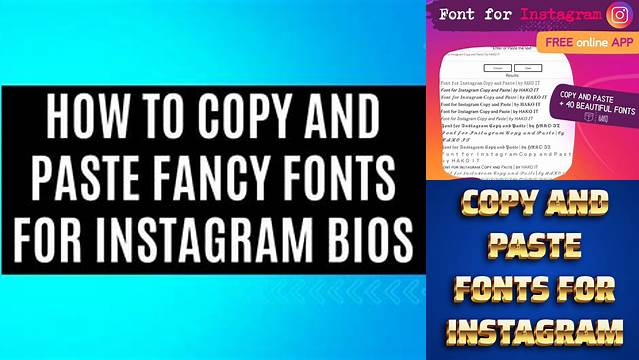
Bold Fonts: Copy & Paste For Instagram (Easy Guide)
Hey guys! Want to make your Instagram posts pop? One super easy way to do that is by using bold fonts. You know, make your captions and bio really stand out from the crowd. But how do you actually get those fancy fonts on Instagram? Well, that's what we're diving into today! We'll explore everything you need to know about bold fonts for Instagram, from copy-pasting techniques to cool font generators and even some tips on when and how to use them effectively. So, let's get started and make your Instagram game strong!
Why Use Bold Fonts on Instagram?
Using bold fonts on Instagram is a fantastic way to grab attention in a visually crowded space. Think about it β everyone's scrolling through their feeds, quickly glancing at posts. A bold font acts like a little highlighter, instantly drawing the eye to your text. This is especially useful for highlighting key information in your captions, making important announcements in your stories, or simply adding a touch of personality to your profile bio. Imagine you're running a contest β using bold fonts for the prize details will make them stand out and increase participation. Or, if you're sharing a heartfelt message, bolding the core sentiment can add extra emphasis. Bold fonts can also help break up large blocks of text, making your content more readable and engaging. It's all about making a visual impact and ensuring your message gets noticed!
How to Copy and Paste Bold Fonts for Instagram
The easiest way to use bold fonts for Instagram is by copying and pasting them from a font generator. There are tons of free online tools that let you type in your text and then convert it into various bold font styles. Simply type your message into the generator, select the bold font you like, copy it, and then paste it into your Instagram caption, bio, or story. Itβs that simple! Most of these generators use Unicode characters to create the bold font effect, which means they'll work on virtually any device and platform. This method is super convenient because you don't need to download any special apps or fonts β everything happens online. Plus, you can experiment with different bold font styles until you find the perfect one to match your aesthetic.
Top Bold Font Generators for Instagram
Okay, so you know why and how to use bold fonts, but where do you find them? There are several fantastic online bold font generators designed specifically for Instagram. Some popular options include LingoJam, YayText, and Instagram Fonts. These generators are super user-friendly: you just type your text into the box, and they'll instantly generate a variety of bold fonts for you to choose from. Some generators even offer other cool font styles like italics, cursive, and even fancy decorative fonts. The best part is that they're all free to use! You can play around with different fonts until you find the perfect one to match your brand or the vibe of your post. Just remember to copy and paste the font directly into Instagram β you won't be able to type in bold fonts directly within the app.
Using Bold Fonts in Your Instagram Bio
Your Instagram bio is like your digital first impression, so making it stand out is key. Bold fonts can be a game-changer here. Use them to highlight your name, your profession, or a key message you want people to remember. For example, if you're a photographer, you could bold the word "Photographer" in your bio. Or, if you're running a small business, you could bold your company's tagline. Using bold fonts in your bio helps to draw attention to the most important information, making it easier for people to understand what you're all about. It also adds a touch of visual flair, making your profile look more polished and professional. Just remember to use bold fonts sparingly β you want to emphasize certain elements, not overwhelm your bio with too much bold text.
Bold Fonts in Instagram Captions: Dos and Don'ts
When it comes to Instagram captions, bold fonts can be your best friend, but it's important to use them wisely. The key is to bold only the most important words or phrases. Think keywords, calls to action, or anything you want to emphasize. For example, if you're announcing a sale, you could bold the discount percentage or the dates of the sale. If you're asking a question, you could bold the question itself to encourage engagement. However, avoid bolding entire sentences or paragraphs β this can make your caption look cluttered and difficult to read. It's all about creating a balance and using bold fonts strategically to guide your reader's eye. A well-placed bold font can significantly enhance the impact of your caption, making it more engaging and memorable.
Making Your Instagram Stories Stand Out with Bold Fonts
Instagram Stories are all about capturing attention quickly, and bold fonts can help you do just that. Whether you're announcing a flash sale, sharing a behind-the-scenes moment, or simply adding text to your story, using bold fonts can make your message pop. In Stories, you have even more creative freedom to experiment with different bold font styles and sizes. You can use bold fonts to create headlines, highlight key information, or add a touch of personality to your text overlays. Just like with captions, it's important to use bold fonts strategically. Too much bold text can be overwhelming, so focus on bolding the most important elements of your story. A well-placed bold font can make your stories more visually appealing and help you connect with your audience on a deeper level.
The Psychology of Fonts: How Bold Fonts Affect Your Audience
Fonts aren't just about aesthetics; they also have a psychological impact on your audience. Bold fonts, in particular, convey a sense of strength, importance, and confidence. When you use bold fonts in your Instagram content, you're subconsciously signaling to your viewers that the text is something they should pay attention to. This can be incredibly effective for highlighting key messages, driving engagement, and establishing a strong brand identity. For example, if you're a fitness coach, using bold fonts in your posts can project an image of strength and authority. If you're a luxury brand, a subtle use of bold fonts can convey a sense of exclusivity and importance. Understanding the psychology of fonts allows you to use them strategically to shape your audience's perception of your brand and message.
Combining Bold Fonts with Other Font Styles for Maximum Impact
While bold fonts are fantastic for grabbing attention, you can achieve even greater impact by combining them with other font styles. Think of it like creating a visual hierarchy: bold fonts for the headlines, regular fonts for the body text, and maybe italics for emphasis. This creates a dynamic and visually engaging look that keeps your audience interested. For example, in your Instagram caption, you could use a bold font for the main title, a regular font for the description, and italics for a witty comment or a call to action. This combination of font styles helps to break up the text, highlight important information, and add a touch of personality to your content. Experiment with different font combinations to find what works best for your brand and your message. The goal is to create a visually appealing and easy-to-read experience for your audience.
Bold Font Alternatives: Exploring Different Ways to Emphasize Text
While bold fonts are a popular choice for emphasizing text, they're not the only option. There are several other ways to make your words stand out on Instagram. Italics are a classic choice for adding emphasis, while uppercase letters can convey a sense of urgency or excitement. You can also use emojis to highlight key points or add a touch of personality to your text. Another technique is to use line breaks to create visual separation and draw attention to specific phrases. The key is to mix and match these techniques to create a visually dynamic and engaging experience for your audience. Don't be afraid to experiment and find what works best for your brand and your message. Sometimes, a subtle use of italics can be just as effective as a bold font, or a well-placed emoji can convey your message even more powerfully.
Troubleshooting: Why Your Bold Fonts Might Not Be Showing Up
Sometimes, despite your best efforts, your bold fonts might not show up correctly on Instagram. This can be frustrating, but don't worry, there are a few common causes and fixes. The most likely culprit is a compatibility issue with the font generator you're using. Some font generators use Unicode characters that aren't fully supported by all devices or versions of Instagram. If you're experiencing this issue, try using a different font generator or a different bold font style. Another possibility is a problem with your device's font settings. Make sure your device is set to display Unicode characters correctly. If you're still having trouble, try clearing your Instagram app's cache or reinstalling the app. In most cases, these simple troubleshooting steps will resolve the issue and get your bold fonts looking their best.
The Future of Fonts on Instagram: What's Next?
The world of fonts on Instagram is constantly evolving. While copy-pasting from font generators is the most common method right now, there's always the possibility that Instagram will introduce native bold font options in the future. Imagine being able to simply select a text and click a "Bold" button β that would be super convenient! In the meantime, font generators will continue to adapt and offer new and creative font styles for Instagram users. We might even see AI-powered font generators that can suggest the perfect font based on your content and brand. One thing is for sure: the desire to make our text stand out on Instagram isn't going away anytime soon. So, keep experimenting with different bold fonts and other font styles, and stay tuned for the latest developments in the world of Instagram typography!
Creating a Consistent Brand Image with Bold Fonts
Consistency is key when it comes to building a strong brand image on Instagram, and that includes your use of fonts. If you want to establish a cohesive brand aesthetic, it's important to choose a few bold font styles and stick with them. Think of your bold fonts as part of your brand's visual identity, just like your logo and color palette. For example, if you're a minimalist brand, you might choose a clean and simple bold font. If you're a playful brand, you might opt for a more quirky and whimsical bold font. The key is to select bold fonts that align with your brand's personality and use them consistently across your Instagram profile, captions, and stories. This will help your audience recognize your content instantly and build a strong association with your brand.
Legal Considerations: Using Bold Fonts Responsibly
While using bold fonts on Instagram is generally safe and legal, there are a few things to keep in mind. First, make sure you're not using bold fonts in a way that could be misleading or deceptive. For example, don't bold a claim that isn't true or bold a price that's not accurate. Honesty and transparency are always the best policy. Second, be mindful of accessibility. While bold fonts can help make your text stand out, they can also be difficult to read for people with certain visual impairments. Try to use bold fonts in moderation and consider using other font styles or techniques to make your content more accessible. Finally, if you're using bold fonts for commercial purposes, make sure you comply with any relevant advertising regulations. Overall, using bold fonts responsibly is about being mindful of your audience and ensuring your content is clear, accurate, and accessible.
Bold Fonts vs. Other Emphasis Techniques: Which to Choose?
Bold fonts are a fantastic tool for emphasis, but they're not the only option. You can also use italics, uppercase letters, emojis, and line breaks to make your text stand out. So, how do you choose the right technique for the job? It often comes down to the specific context and your desired effect. Bold fonts are great for highlighting key words or phrases, creating headlines, and conveying a sense of importance. Italics are ideal for adding a subtle emphasis, conveying emotion, or quoting someone. Uppercase letters can be effective for creating a sense of urgency or excitement, but use them sparingly as they can also come across as aggressive. Emojis are perfect for adding a touch of personality and highlighting key points in a visually appealing way. And line breaks can help break up large blocks of text and draw attention to specific phrases. The best approach is often to combine these techniques to create a dynamic and engaging text.
Accessibility Considerations When Using Bold Fonts
While bold fonts can be a great way to make your text stand out on Instagram, it's important to consider accessibility for all users. Some people with visual impairments may find bold fonts difficult to read, especially if they are used excessively or in combination with other stylistic elements. To ensure your content is accessible, it's a good idea to use bold fonts in moderation and avoid using them for large blocks of text. Instead, focus on bolding key words and phrases that you want to emphasize. You can also use other techniques, such as adding descriptive alt text to your images or providing captions for your videos, to make your content more accessible to a wider audience. Remember, creating inclusive content not only benefits individuals with disabilities but also enhances the overall user experience for everyone.
Bold Fonts and Readability: Finding the Right Balance
The main goal of using bold fonts is to enhance readability and draw attention to important information. However, using too many bold fonts can actually have the opposite effect, making your text cluttered and difficult to read. The key is to find the right balance. Think of bold fonts as a tool for highlighting key elements, not for rewriting entire paragraphs. When you're crafting your Instagram captions, bios, or stories, ask yourself what the most important message you want to convey is. Then, strategically use bold fonts to emphasize those key words and phrases. By using bold fonts sparingly and thoughtfully, you can improve readability and ensure your message gets across effectively. A well-placed bold font can guide your reader's eye and make your content more engaging and memorable.
Monetizing Your Instagram with Bold Fonts: Tips and Tricks
If you're using Instagram to promote your business or brand, bold fonts can be a valuable tool for driving conversions and increasing sales. By using bold fonts strategically in your captions, bios, and stories, you can draw attention to your products, services, and promotions. For example, if you're running a sale, you could bold the discount percentage or the dates of the sale. If you're promoting a new product, you could bold the product name or a key benefit. In your bio, you could bold your website link or a call to action. The key is to use bold fonts to highlight the most important information and make it easy for your audience to take action. A well-placed bold font can be the difference between a casual scroll and a click-through that leads to a sale.
Bold Fonts for Different Niches: What Works Best?
The effectiveness of bold fonts can vary depending on your niche and target audience. What works well for a fashion brand might not be as effective for a tech company. For example, a fashion brand might use a stylish or decorative bold font to convey a sense of luxury and sophistication. A tech company, on the other hand, might opt for a clean and modern bold font to project an image of professionalism and innovation. It's important to consider your brand's personality and the preferences of your target audience when choosing bold fonts. Do some research to see what fonts are commonly used in your niche and experiment with different styles to find what resonates best with your audience. A bold font that aligns with your niche can help you create a stronger brand identity and connect with your audience more effectively.
Bold Fonts in Instagram Ads: Maximizing Click-Through Rates
Instagram ads are a powerful way to reach a wider audience, and bold fonts can play a key role in maximizing your click-through rates. When creating your ad copy, use bold fonts strategically to highlight key benefits, calls to action, and other important information. For example, if you're offering a discount, bold the discount percentage to grab attention. If you're promoting a free trial, bold the words "Free Trial" to entice clicks. In your call to action, use a bold font to make it stand out and encourage users to take the next step. The goal is to make your ad copy as clear, concise, and compelling as possible, and bold fonts can help you achieve that. A well-crafted ad with strategically placed bold fonts can significantly increase your click-through rates and drive more traffic to your website or landing page.
Bold Fonts and User Engagement: Sparking Conversations
Bold fonts can be a great way to spark conversations and increase user engagement on your Instagram posts. By using bold fonts to ask questions, highlight key points, or create a sense of excitement, you can encourage your followers to comment, like, and share your content. For example, if you're sharing a new recipe, you could bold a question like "What's your favorite ingredient?" to get people talking. If you're announcing a new product launch, you could bold the launch date or a key feature to generate buzz. In your captions, use bold fonts to emphasize your call to action and encourage users to engage with your content. The more you can make your posts interactive and engaging, the more likely you are to build a strong community around your brand.
Bold Fonts and Mobile Optimization: Ensuring Legibility
Since most Instagram users access the platform on their mobile devices, it's crucial to ensure your bold fonts are legible on smaller screens. A bold font that looks great on a desktop computer might appear cluttered or overwhelming on a smartphone. When choosing bold fonts for Instagram, opt for styles that are clear, concise, and easy to read on mobile devices. Avoid overly decorative or intricate bold fonts that can become illegible when scaled down. Pay attention to the size and spacing of your bold fonts to ensure they are comfortable to read. It's also a good idea to test your content on different devices and screen sizes to see how your bold fonts look in various contexts. By prioritizing mobile optimization, you can ensure your message is clear and impactful for all your followers.
Bold Fonts and International Audiences: Unicode Compatibility
If you have an international audience on Instagram, it's important to consider Unicode compatibility when using bold fonts. Some font generators use Unicode characters that may not be displayed correctly on all devices or in all languages. This can lead to your text appearing as boxes or other strange symbols, which can be frustrating for your followers. To avoid this issue, choose font generators that use widely supported Unicode characters and test your bold fonts across different devices and languages. You can also ask your followers from different regions to let you know if they are having any issues viewing your bold fonts. By being mindful of Unicode compatibility, you can ensure your message is clear and accessible to your entire international audience.
Bold Fonts and Emojis: Creating Visually Appealing Content
Bold fonts and emojis can be a powerful combination for creating visually appealing content on Instagram. Emojis add a touch of personality and emotion to your text, while bold fonts help to highlight key words and phrases. When used together strategically, they can make your posts more engaging and memorable. For example, you could use a bold font for a headline and then add relevant emojis to illustrate your points. You could also use emojis to break up large blocks of text or to emphasize a call to action. Just like with bold fonts, it's important to use emojis in moderation and avoid overwhelming your audience. A well-balanced mix of bold fonts and emojis can help you create visually dynamic content that captures attention and sparks conversations.
Bold Fonts and Hashtags: Maximizing Discoverability
Hashtags are essential for increasing the discoverability of your Instagram posts, and bold fonts can play a role in making your hashtags stand out. While you can't actually bold hashtags themselves, you can use bold fonts in your captions to draw attention to the hashtags you're using. For example, you could write a sentence like "Check out these amazing photos using #travelphotography" and bold the phrase "#travelphotography." This will help your hashtags stand out and encourage users to click on them. You can also use bold fonts to highlight the main keywords in your captions, which can help your posts rank higher in search results. By using bold fonts strategically in your captions, you can maximize the discoverability of your content and reach a wider audience.
Bold Fonts in Instagram DMs: Personalizing Your Messages
While bold fonts are commonly used in Instagram posts and stories, you can also use them in your direct messages (DMs) to personalize your messages and make them stand out. If you're reaching out to a potential client or collaborator, using bold fonts to highlight key points can make your message more engaging and professional. You could bold your name, your company, or a specific offer you're making. If you're responding to a DM, using bold fonts to emphasize your answers or ask clarifying questions can help make the conversation flow more smoothly. Just like in other contexts, it's important to use bold fonts in moderation and avoid overwhelming your recipient. A well-placed bold font can add a personal touch to your DMs and help you build stronger relationships on Instagram.
Bold Fonts and Competitor Analysis: Standing Out from the Crowd
In the competitive world of Instagram, bold fonts can be a valuable tool for differentiating yourself from the competition. By analyzing how your competitors are using fonts in their content, you can identify opportunities to stand out and create a unique brand identity. Take a look at the bold fonts they're using in their captions, bios, and stories. Are they using a consistent style? Are they using bold fonts effectively to highlight key messages? Once you have a good understanding of your competitors' font strategies, you can start experimenting with your own bold font choices to create a distinctive look and feel for your brand. Don't be afraid to try new things and see what resonates best with your audience. A well-chosen bold font can help you stand out from the crowd and attract more followers and customers.
Bold Fonts and A/B Testing: Optimizing Your Content
A/B testing is a powerful technique for optimizing your Instagram content, and bold fonts can be a key element to test. By creating two versions of the same post with different bold font styles or placements, you can see which version performs better in terms of engagement, click-through rates, or other metrics. For example, you could test bolding different words or phrases in your caption to see which version generates more comments or likes. You could also test using different bold font styles to see which ones resonate best with your audience. The key is to change only one variable at a time so you can accurately measure the impact of your bold font choices. Over time, A/B testing can help you identify the most effective ways to use bold fonts in your content and maximize your results on Instagram.
Bold Fonts and Calls to Action: Driving Conversions
Calls to action (CTAs) are essential for driving conversions on Instagram, and bold fonts can be a valuable tool for making your CTAs stand out. By using bold fonts to highlight your CTAs, you can draw attention to them and encourage your followers to take the desired action. For example, if you want people to visit your website, you could bold the phrase "Click the link in bio." If you want people to sign up for your email list, you could bold the words "Sign Up Now." In your stories, you can use bold fonts to emphasize your swipe-up links or poll options. The key is to make your CTAs as clear and compelling as possible, and bold fonts can help you achieve that. A well-placed bold font can be the difference between a casual scroll and a conversion that drives your business forward.
Bold Fonts and Storytelling: Creating Engaging Narratives
Instagram is a powerful platform for storytelling, and bold fonts can be a valuable tool for creating engaging narratives in your captions, stories, and reels. By using bold fonts strategically, you can highlight key moments, emphasize important details, and create a sense of drama or excitement. For example, if you're sharing a personal story, you could bold the turning point or the most emotional part. If you're telling a brand story, you could bold the values or the mission that drive your business. In your stories, you can use bold fonts to create a sense of anticipation or suspense. The key is to use bold fonts to enhance your storytelling and make your narratives more compelling and memorable. A well-crafted story with strategically placed bold fonts can captivate your audience and build a stronger connection with your brand.